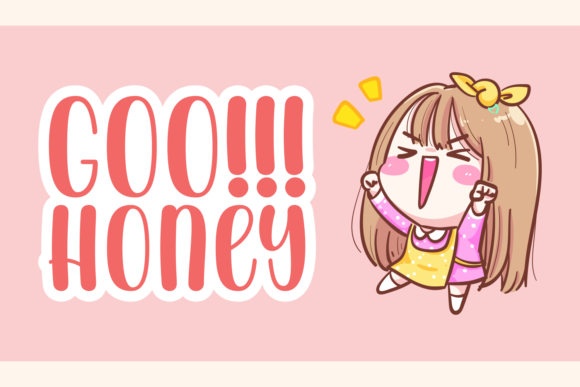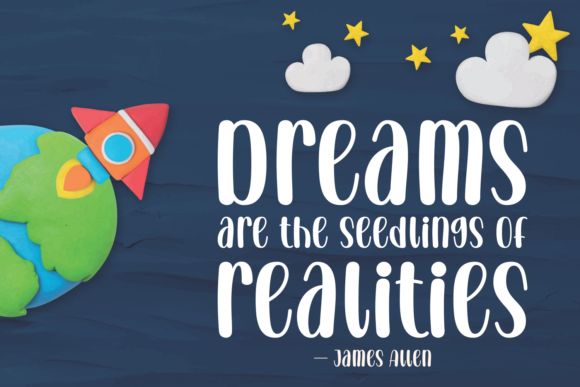
Smart Girls Font
db-ku.com - Script & Handwritten -- The Smart Girls font is a creative handwritten font, that brings a fun and creative touch to your crafting projects. Its smooth edges create a playful look, that makes Smart Girls the perfect font to use when creating designs for children, quotes for crafting, when crafting with machines such as cutting machines, sublimation, laser cutting and more.